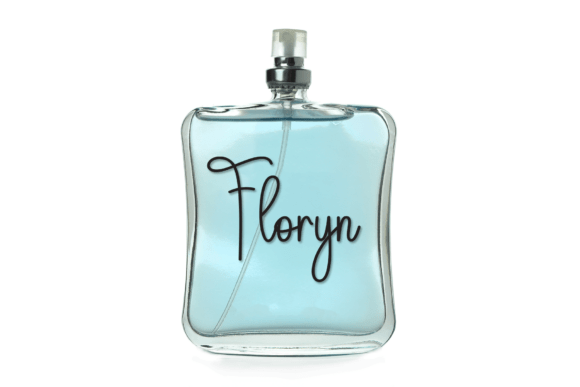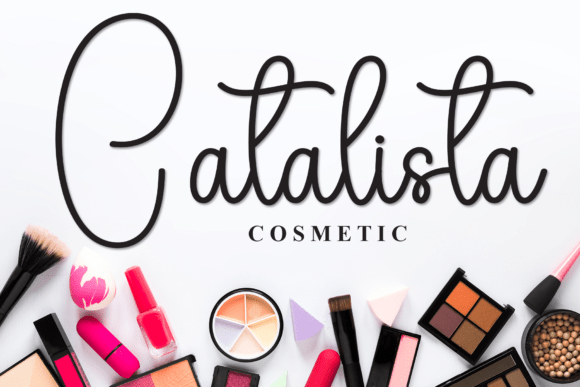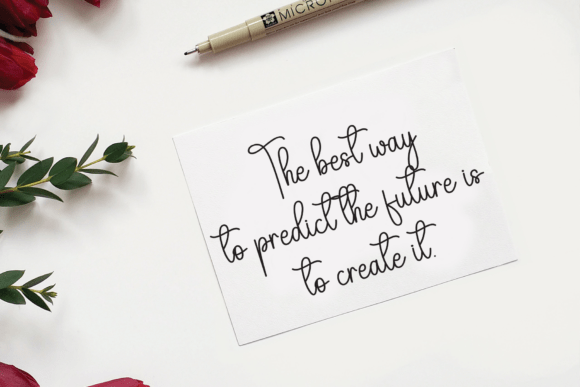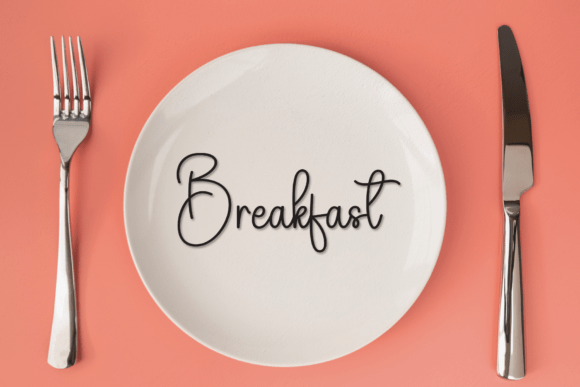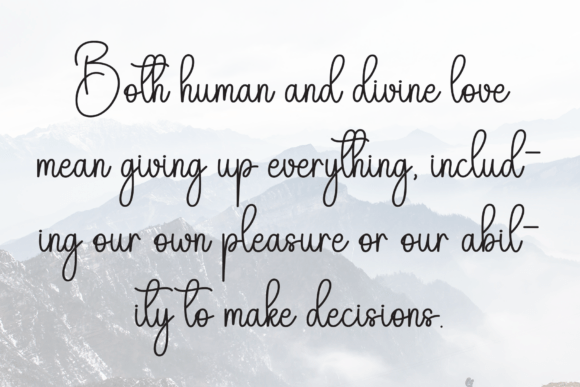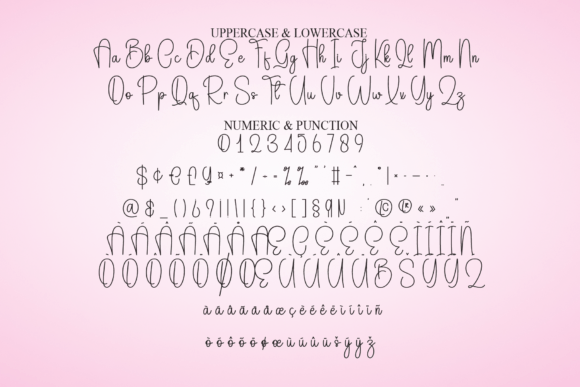
Introducing the Barbie Font: Elevate Your Designs with a Touch of Elegance
Are you a designer, crafter, or DIY enthusiast looking for a font that can add a touch of elegance and sophistication to your projects? Look no further than the Barbie Font! This stunning font is perfect for creating beautiful wall displays, wedding invitations, social media post logos, advertisements, product packaging, product designs, labels, photography, watermarks, invitations, stationery, and any project that requires tasteful handwriting.
What Sets the Barbie Font Apart?
Our Barbie Font is a specially crafted typeface designed to provide you with an extraordinary experience. With its latest style letters, this font is sure to impress your audience and take your designs to the next level. Whether you’re a professional designer or a crafty DIY enthusiast, this font is perfect for anyone looking to add a touch of elegance and sophistication to their projects.
The Barbie Font is incredibly versatile, making it perfect for a wide range of design projects. Here are just a few ideas to get you started:
- Wall displays: Create stunning wall art, quotes, and posters that will grab attention.
- Wedding invitations: Add a touch of elegance and sophistication to your wedding stationery.
- Social media post logos: Elevate your social media presence with beautiful, custom logos.
- Advertisements: Create eye-catching ads that will stand out from the crowd.
- Product packaging: Add a touch of luxury to your product packaging.
- Product designs: Create stunning product designs that will leave a lasting impression.
- Labels: Design beautiful labels for your products, gifts, or DIY projects.
- Photography: Add a touch of elegance to your photography with custom watermarks.
- Invitations: Create stunning invitations for parties, events, or special occasions.
- Stationery: Design beautiful stationery, journals, or planners that will make your friends and family jealous.
Why Choose the Barbie Font?
With so many fonts on the market, why choose the Barbie Font? Here are just a few reasons why:
- Unique and elegant design: Our font is designed to provide a touch of elegance and sophistication to your designs.